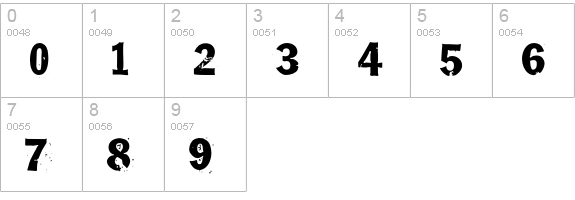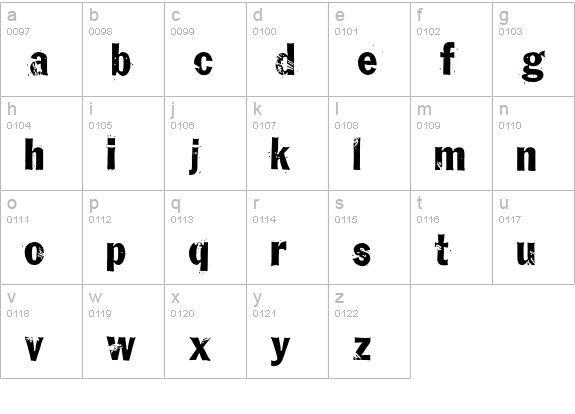
Gutter Font Details
The Gutter font is a modern and edgy typeface that exudes a sense of urban sophistication. With its sharp angles and bold strokes, this font is perfect for making a statement in your designs. Whether you're creating posters, logos, or social media graphics, Gutter will add a touch of contemporary flair to your projects. The best part? Gutter font is available for free download at FontsMarket.com. You can easily access this stylish font and incorporate it into your design projects without any hassle. Don't miss out on the opportunity to enhance your creations with the sleek and dynamic Gutter font today!